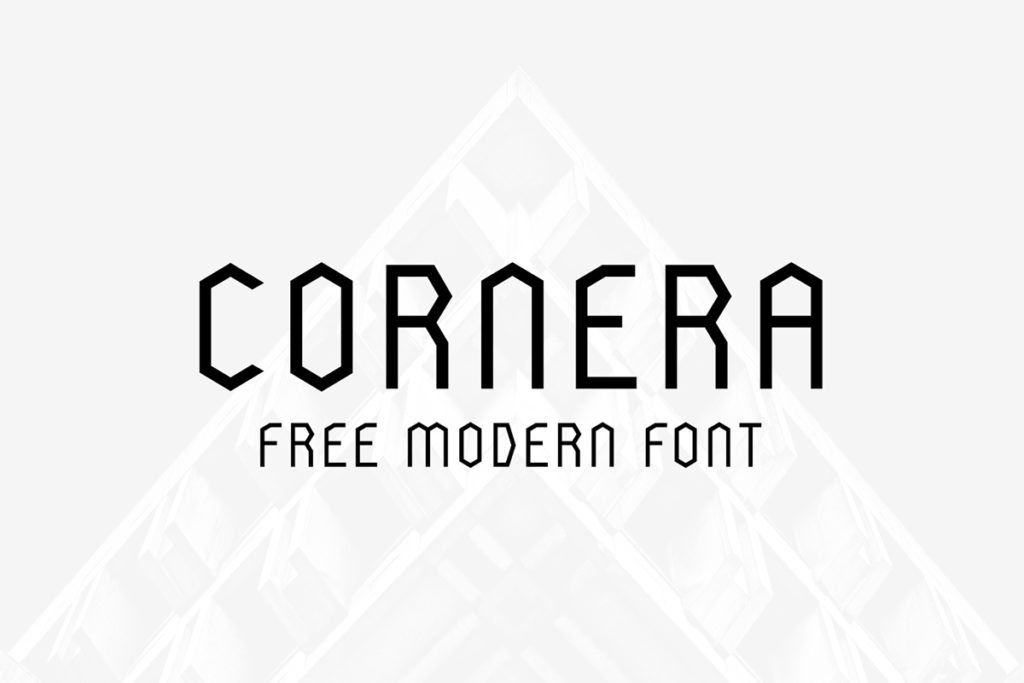
Cornera – Free Font
A free modern font, Cornera by Gatis Vilaks is is a unique style typeface, ideal for eye cathcing designs. Ideal for logos, phrases and short descriptions.
Cornera - Free Font